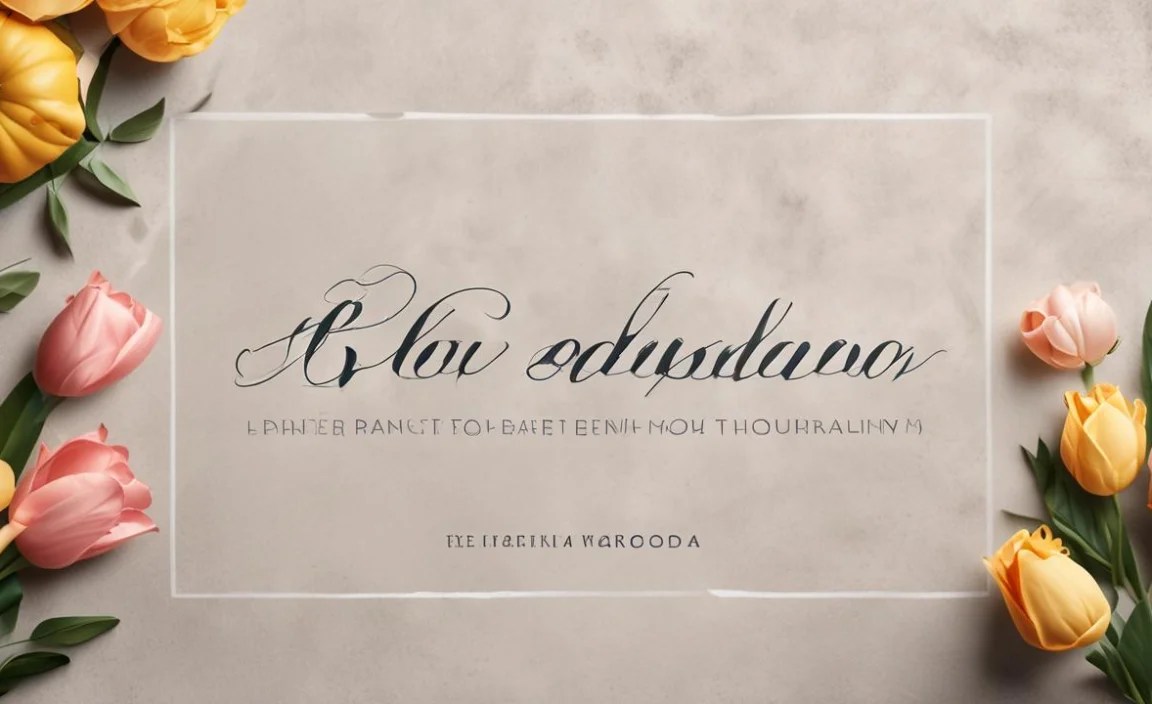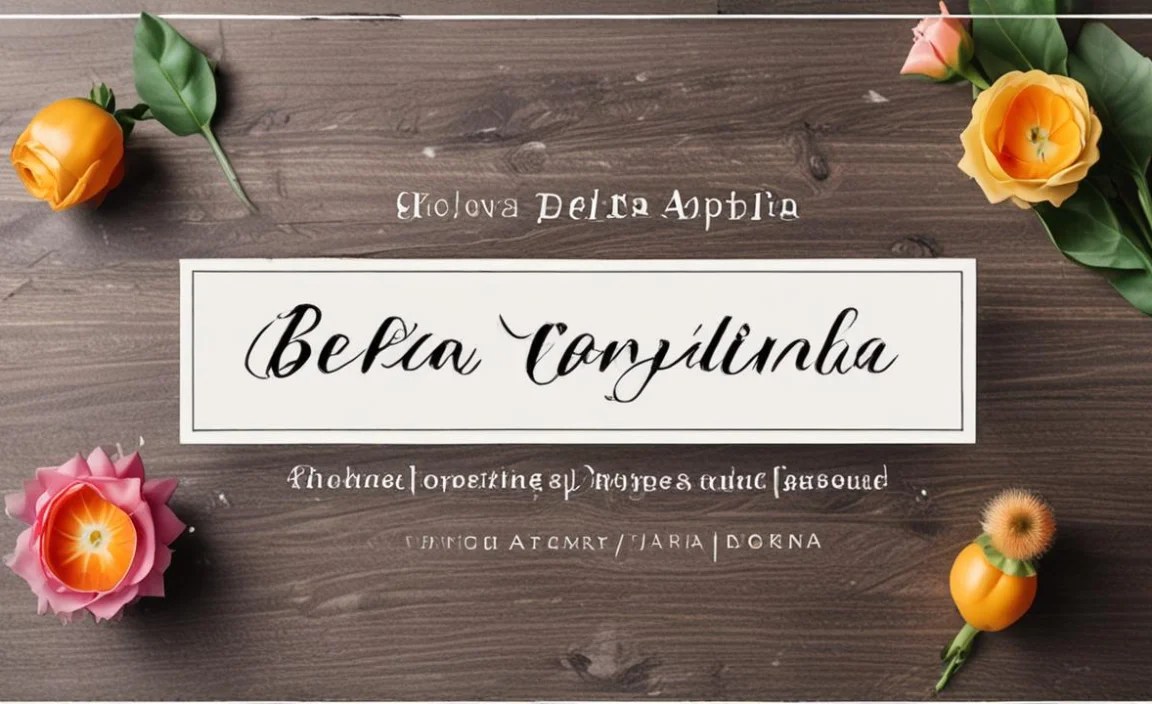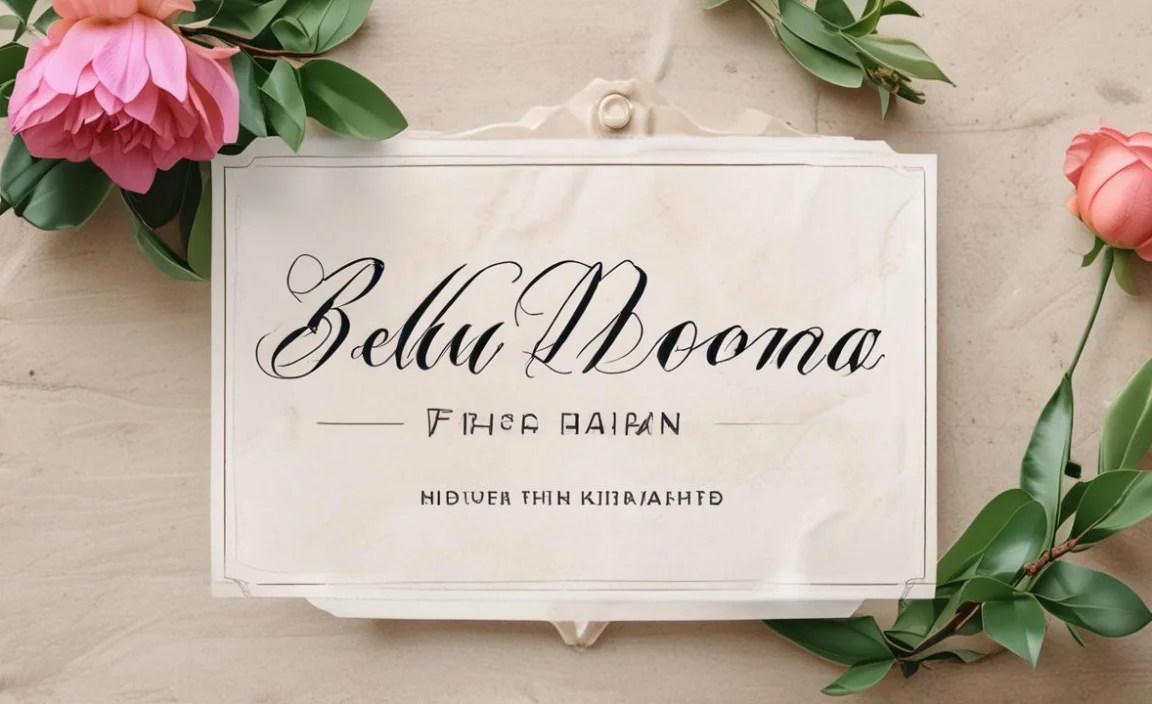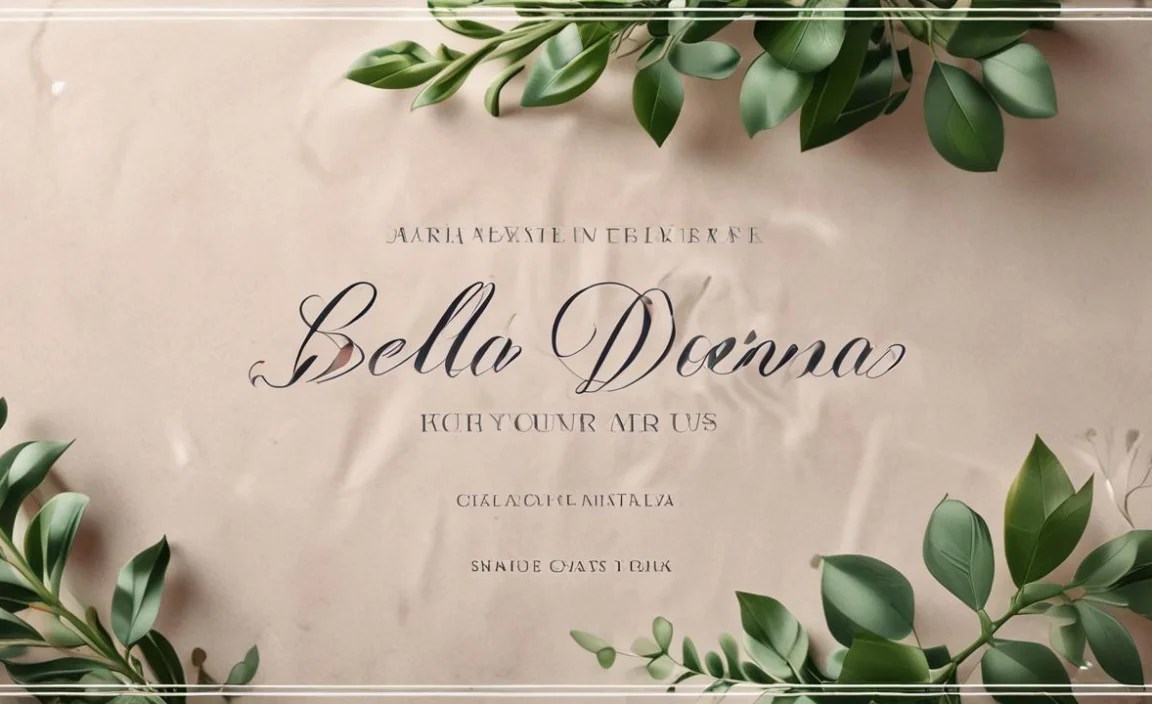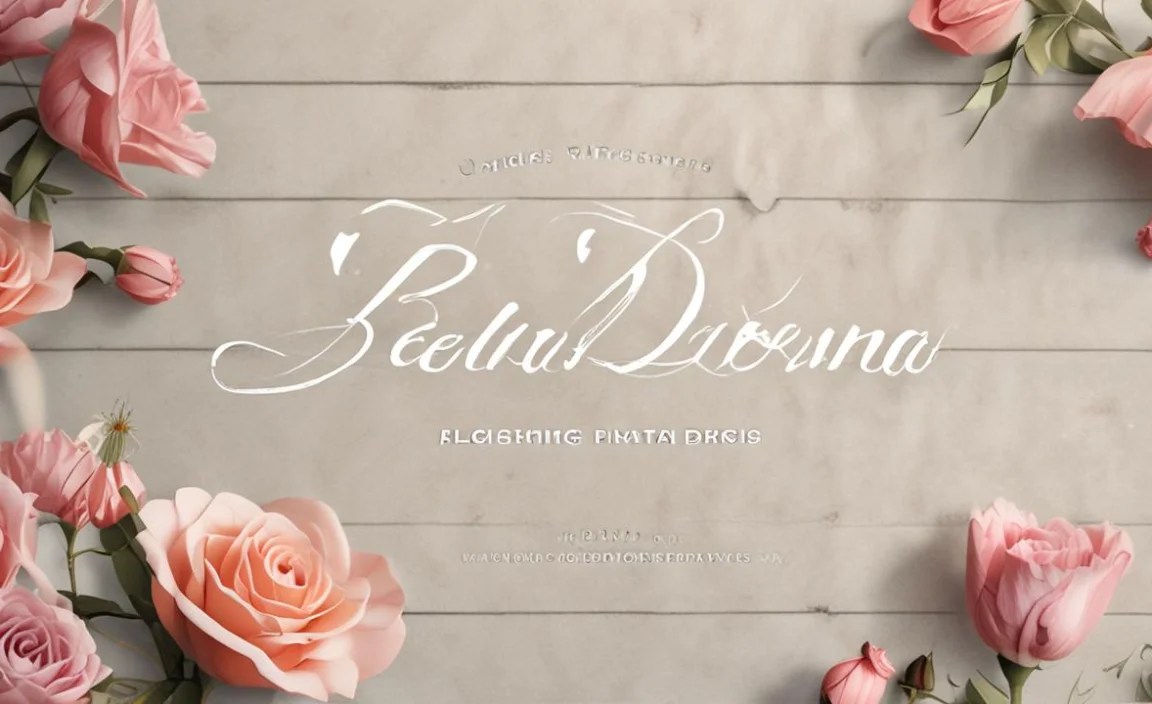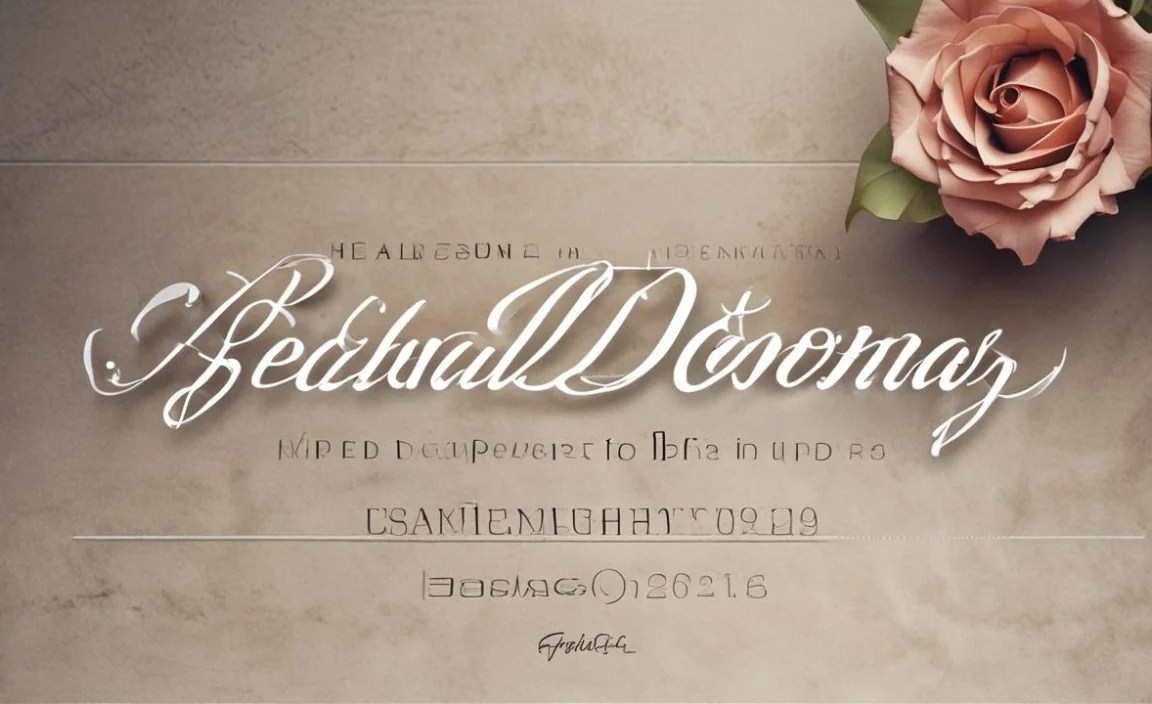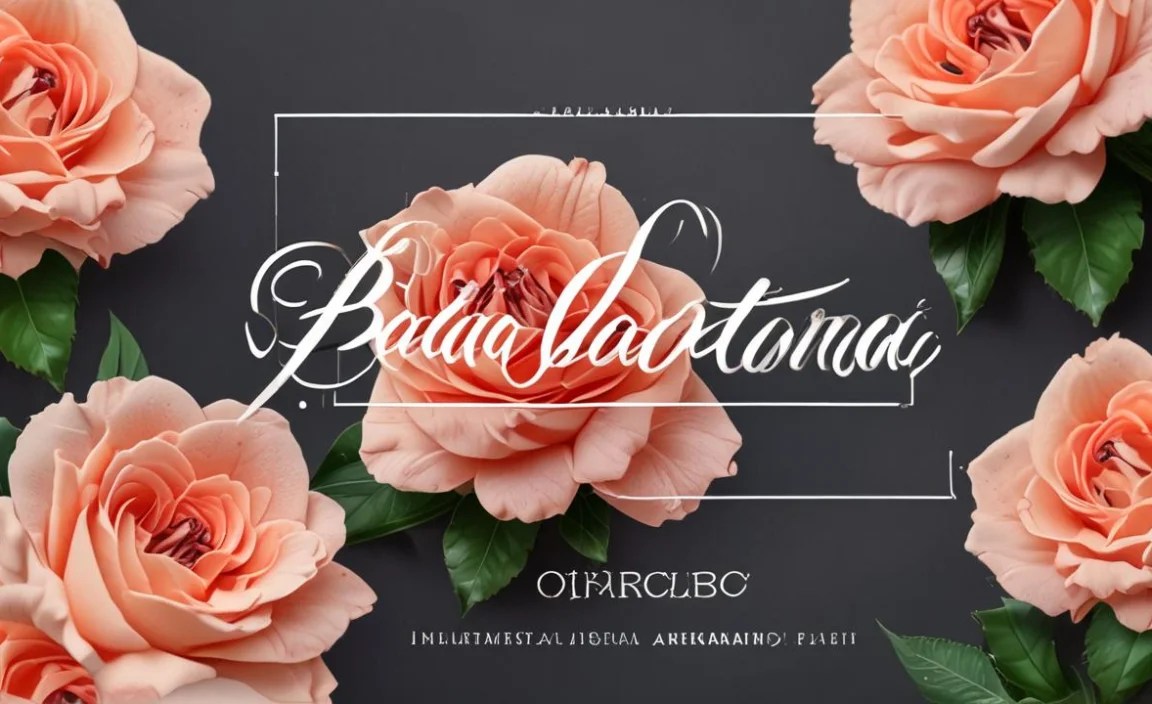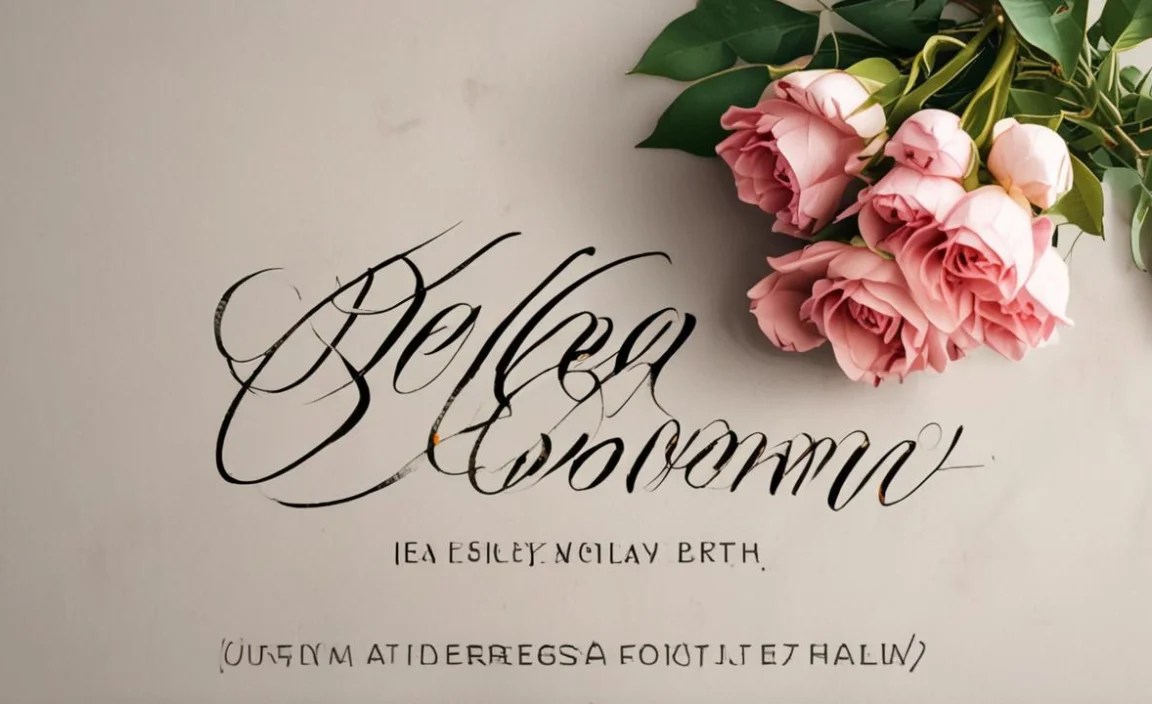
Bella Donna Font, created by Billy Argel, is an elegant and sophisticated handwritten font. It adds a personal, artistic touch to any design. This font is a favorite among designers for projects that need an artistic and unique flair, from greeting cards to branding and beyond. Whether you’re working on retro fonts for a vintage-inspired project or selecting a modern font for a fresh, contemporary look, Bella Donna delivers the perfect combination of elegant signature font and functional beauty.
Bella Donna Font Family
Bella Donna Regular is the standout style in the Bella Donna family, combining delicate swash flourishes with elegant curves and a flowing script that feels both personal and refined. As a decorative font, it offers special characters that elevate your designs, making it ideal for quote text, headline text, or even unique logo fonts. This versatile font name brings charm and sophistication to all your projects.
Why Choose Bella Donna Font?
Bella Donna stands out as a handwritten font for a variety of reasons. Its charm lies not just in its appearance but also in its functionality across various creative applications. Here’s why Bella Donna should be your go-to choice for your next project:
Elegant & Decorative
The flowing script of Bella Donna makes it perfect for vintage fonts, while also fitting seamlessly into modern and retro fonts designs. Whether you’re designing for a website or publishing a magazine, this font brings elegance to any desired text.
Perfect Font For Branding
The clean yet artistic design of Bella Donna makes it a standout for branding and advertising. Its ability to convey personality and warmth makes it an ideal logo font, giving your brand a sophisticated and recognizable identity.
Multilingual Support
Bella Donna also offers excellent multilingual support, which is important when working with diverse markets. Bella Donna incorporates special characters that adapt to various languages, guaranteeing seamless global reach for your designs.
Adaptable Across Platforms
Where To Use Bella Donna Font?
The versatility of Bella Donna makes it a go-to font for various creative projects, from personal designs to professional branding and marketing. Here are some of the best places to incorporate Bella Donna into your work:
Branding & Logos
Whether you’re a designer working on a project for a client or a small business owner looking to design your brand, Bella Donna makes the perfect font for creating impactful logo fonts. Its flowing script and sophisticated style will leave a lasting impression on your audience.
Social Media & Email
When creating advertising materials for your social media pages or sending out a personal use email with an elegant touch, Bella Donna shines. Its distinctive look will ensure that your text stands out in inboxes and feeds.
Greeting Cards & Invitations
The decorative fonts of Bella Donna are perfect for personal events, from weddings to birthdays. Use it on your greeting cards or wedding invitations for an elegant, handwritten effect that gives your project a personalized touch.
Website Design
It can be used for headings, buttons, and even navigation text if you’re designing a website. The font brings a personal and stylish element that engages visitors while maintaining readability and functionality.
Publishing & Editorials
Whether you’re creating magazine covers, book titles, or editorial content, Bella Donna is a perfect choice for headline text or article titles. Its sophisticated script helps make your editorial content stand out, creating an eye-catching design that adds detail and elegance to your publication.
Bella Donna pairs beautifully with modern fonts like Poppins, Lora, and Playfair Display, which complement its flowing script style.
6.Does Bella Donna Support Multiple Languages?
Yes, Bella Donna includes special characters and multilingual support, allowing you to use it in various languages and expand its application across different regions.
7.What Types Of Projects Are Best Suited For Bella Donna Font?
Bella Donna is perfect for branding, social media graphics, invitations, advertising, greeting cards, website design, and publishing editorial content.